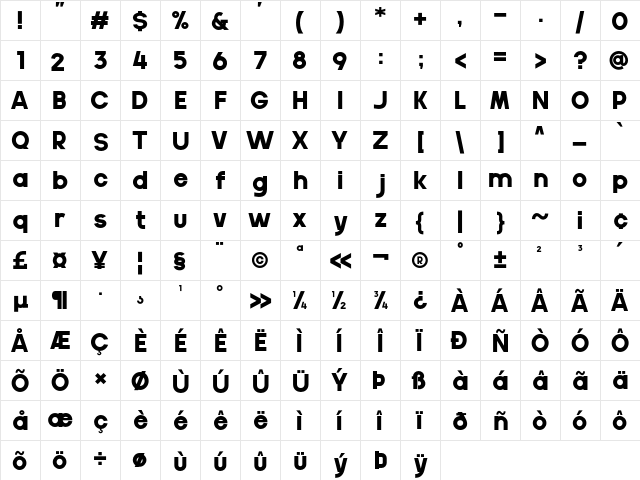
Gila Regular
Design Context for Gila Typeface
Gila is a composed and adaptable typeface that performs quietly and consistently across a wide range of design contexts.
Pro Tip: Use Gila in both headline and body roles to test its range before committing to a single application.